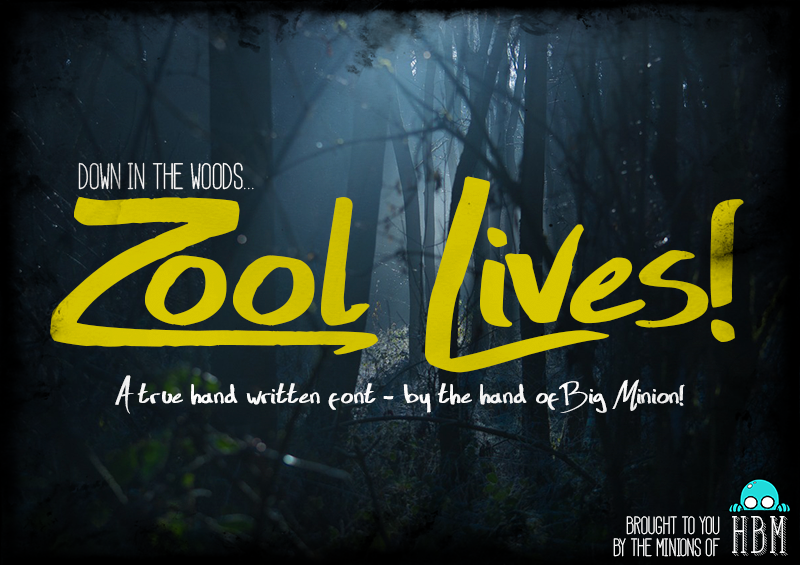
The font, Zool Lives, is a handwritten scrawling brush script font designed to look odd and invoke a feeling of unease. The font suits those looking for an edgy font that looks like it was written with haste and for those looking to create trashy scrawling brush script text! If you like this font consider donating! please visit http://www.monsterswithin.com - Big Minion |